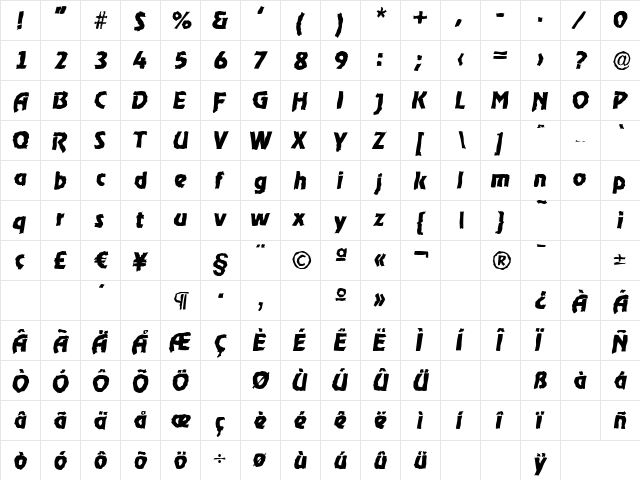
OnStageRandom-Xbold Italic
Design Context for OnStageRandom-Xbold Typeface
OnStageRandom-Xbold is a composed and adaptable typeface that performs quietly and consistently across a wide range of design contexts. The dynamic lean of this cut emphasises speed and emphasis in any layout. Its bold stroke weight gives it real presence on the page.
Pro Tip: Use OnStageRandom-Xbold for emphasis, pull quotes, and subheadings where its slanted energy can add rhythm to the layout.